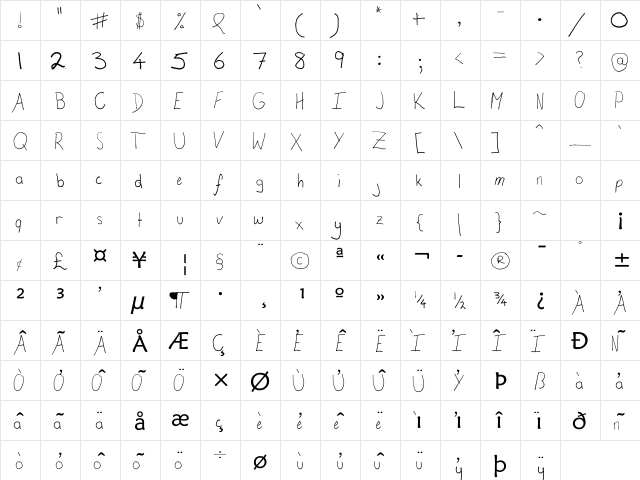
Calis in Puppetland Boggled
Design Context for Calis in Puppetland Typeface
Calis in Puppetland is a composed and adaptable typeface that performs quietly and consistently across a wide range of design contexts.